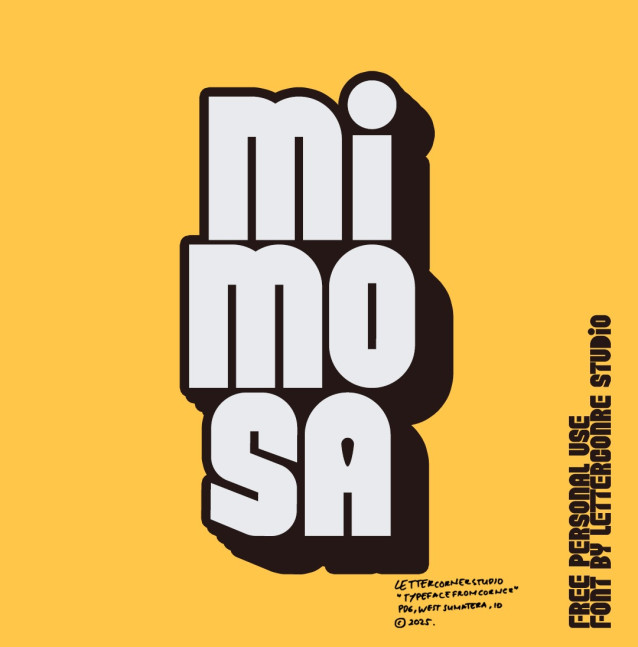
Mimosa Font
Mimosa Font is a thick and bubbly font from Lettercorner Studio. This font works best for headline, logo, poster, and packaging.Thanks to Lettercorner Studio for sharing with us this exquisite font! However, this Mimosa Bold Display Font is only a demo version available for personal use. So, if you want to access more its full features and license, go get the premium version as well!